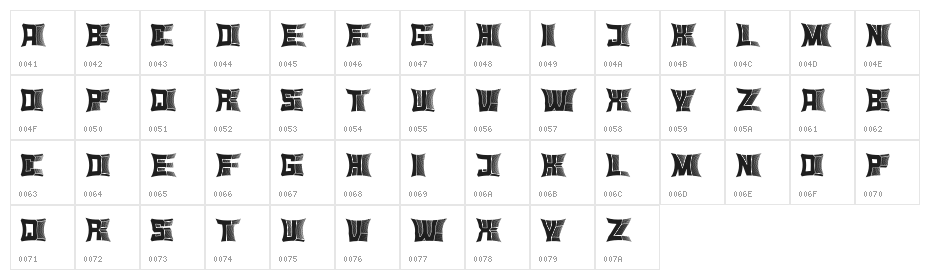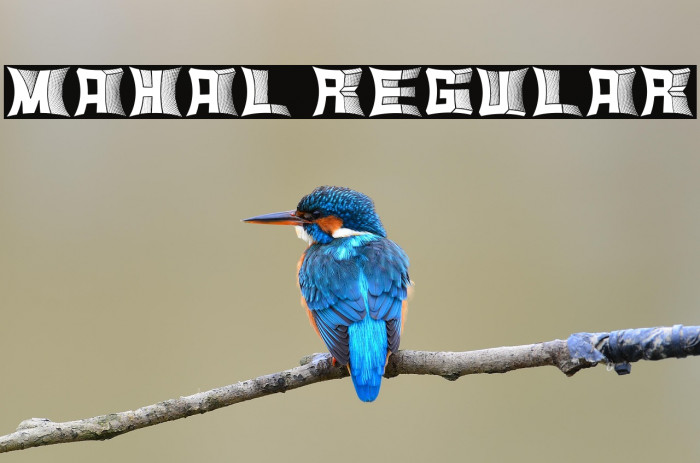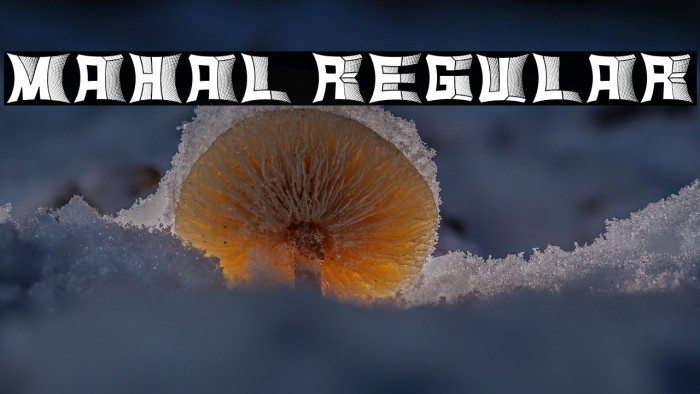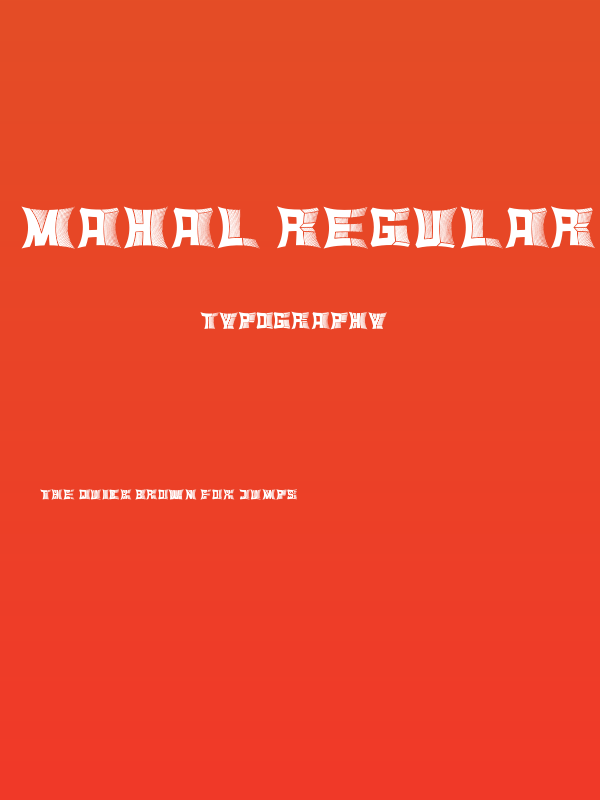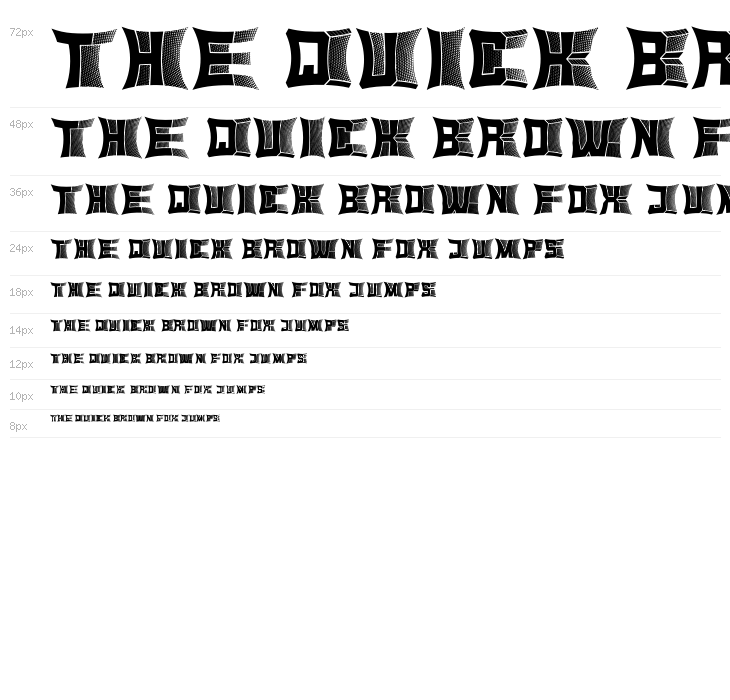
Mahal Regular Font
Mahal Regular Description
This font features a bold, decorative style with intricate patterns filling each character. The letters have a unique, artistic flair, with a textured appearance that adds depth and visual interest. The design is reminiscent of traditional craftsmanship, with each character appearing as if it has been meticulously carved or woven. The boldness of the font ensures that it stands out, making it ideal for attention-grabbing headlines or artistic projects. The intricate details within each letter create a sense of movement and complexity, making it a visually captivating choice.
| Use Case | Headlines, Logos, Artistic projects |
| Proposed Projects | Ideal for artistic projects, posters, headlines, and branding that require a unique and eye-catching typeface. |